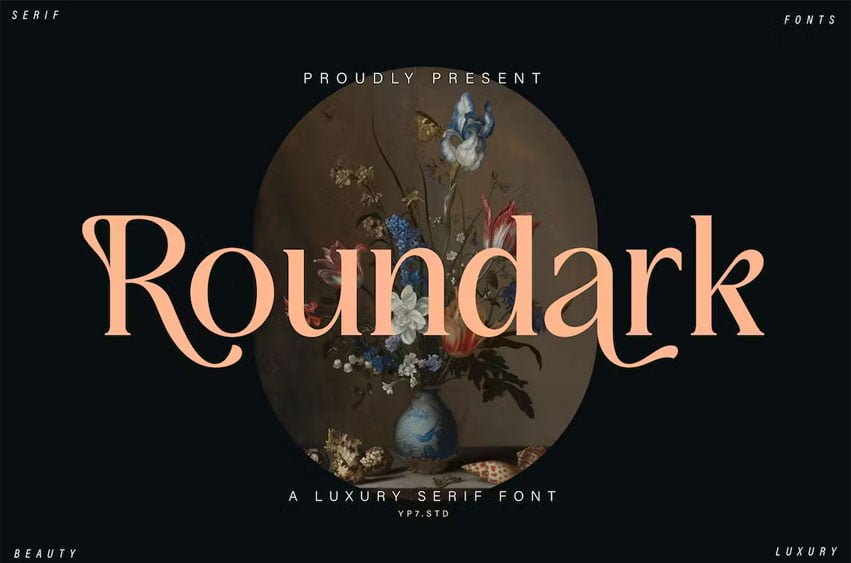
Roundark Font fits in headlines, logos, posters, flyers, invitations, name cards, branding materials, print media, editorial layouts, and many more.
Roundark Luxury Serif Font